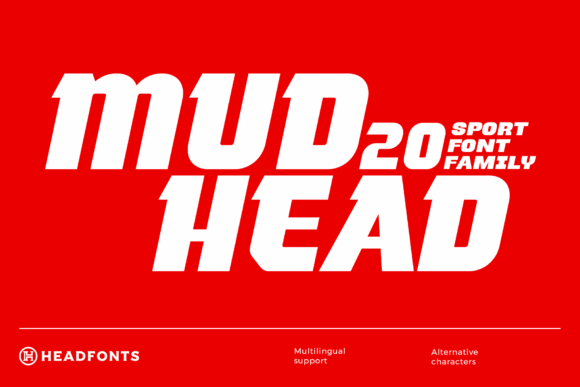
Unleash your creativity with Mudhead Family Font, the ultimate display font that will ignite your imagination and transform your designs into captivating masterpieces! Its bold and distinctive characters dance across the page, demanding attention and leaving an unforgettable impression.
With Mudhead Family Font, your designs will transcend the ordinary. Its versatility knows no bounds, making it perfect for posters that scream for attention and research projects that demand impact. Whether you're crafting eye-catching headlines, alluring posters, or thought-provoking research, this font will elevate your work to new heights.
Indulge in the freedom of expression as you explore the endless possibilities of Mudhead Family Font. Its PUA encoding grants you effortless access to a treasure trove of glyphs and swashes, empowering you to unleash your creativity like never before.
Embrace the power of Mudhead Family Font and witness the transformation of your designs into captivating works of art. Let its bold strokes ignite your imagination and create designs that resonate with your audience, leaving a lasting impression that will linger in their minds long after they've turned the page.
Don't settle for ordinary fonts; choose Mudhead Family Font and unlock a world of design possibilities. Its bold and expressive nature will make your ideas leap off the page and into the hearts of your audience.